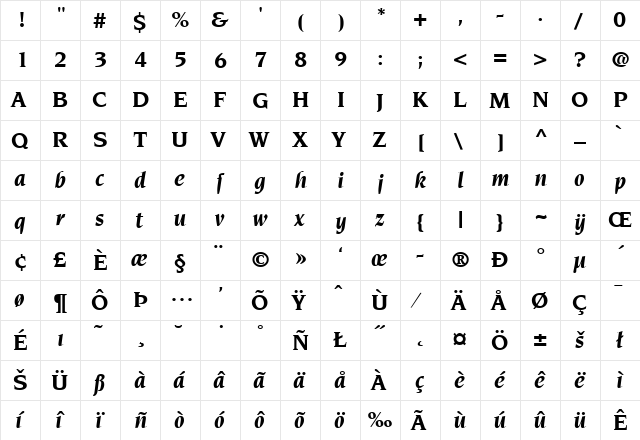
Novarese-BoldItalic Regular
Design Context for Novarese-BoldItalic Typeface
Novarese-BoldItalic takes a measured approach to typography — its balanced proportions and neutral character make it a reliable workhorse for both digital and print work. Its italic angle brings a sense of urgency and motion to the letterforms. Its bold stroke weight gives it real presence on the page.
Pro Tip: Use Novarese-BoldItalic for emphasis, pull quotes, and subheadings where its slanted energy can add rhythm to the layout.